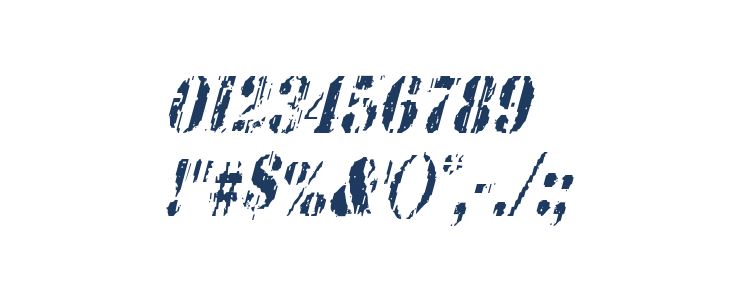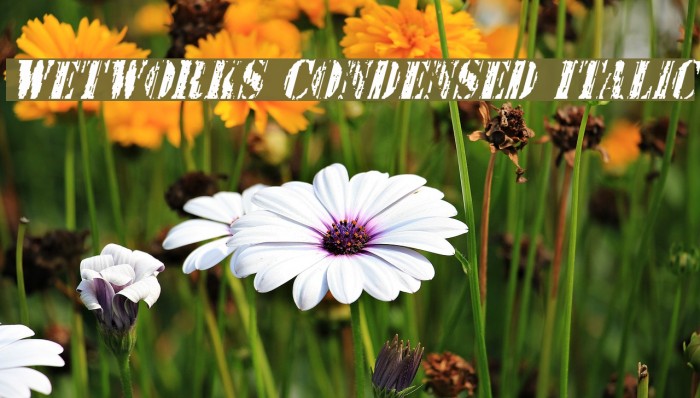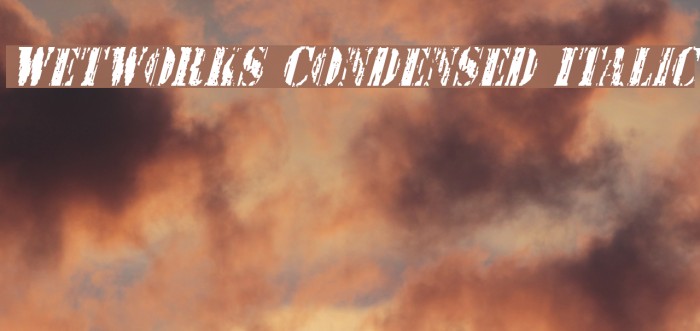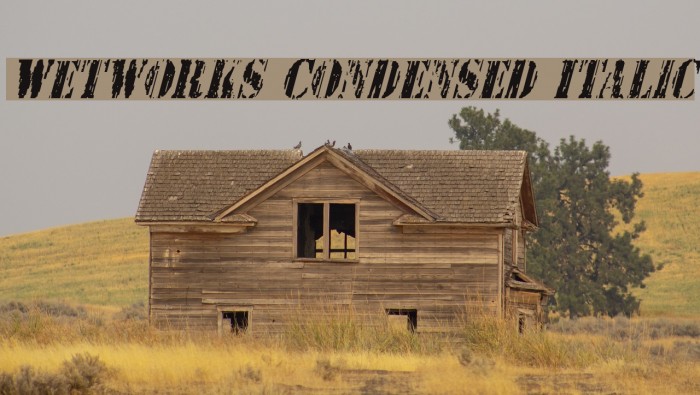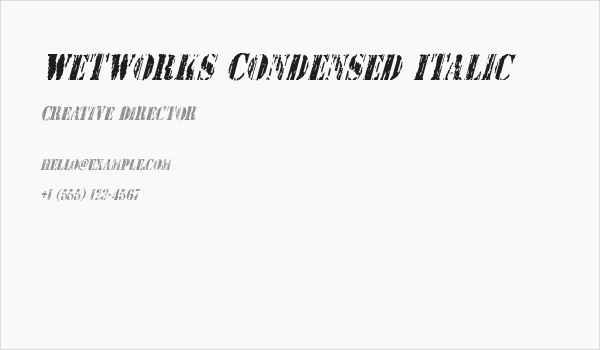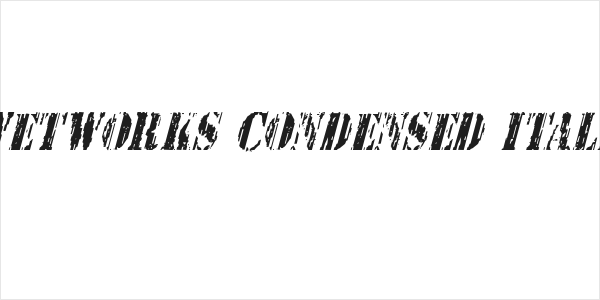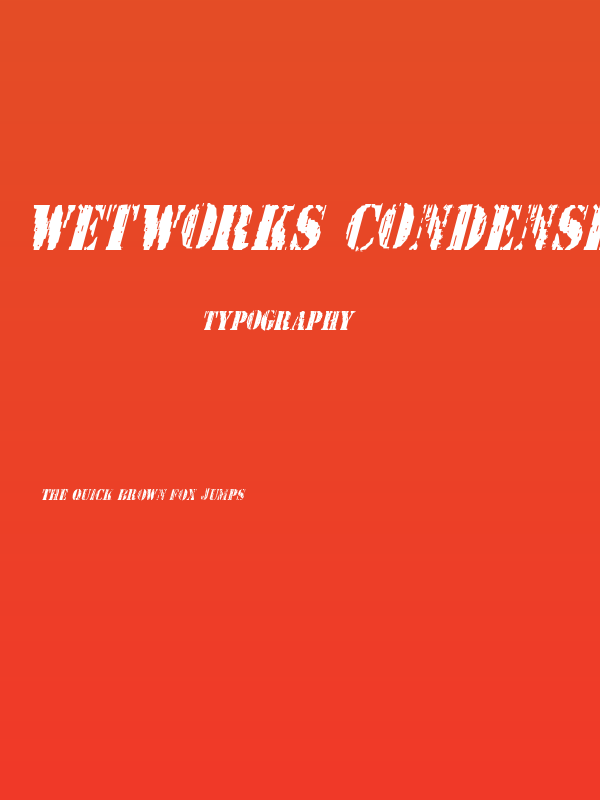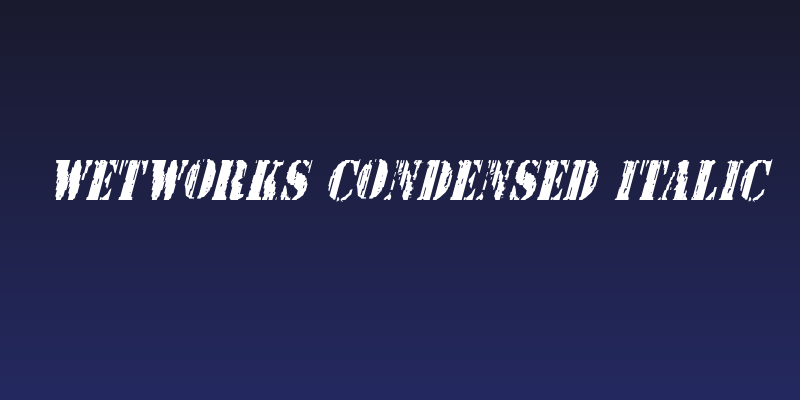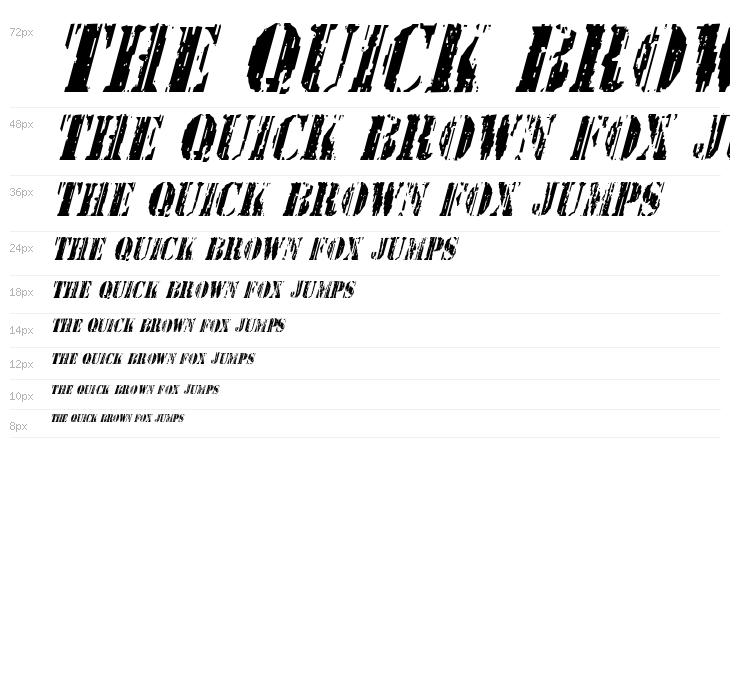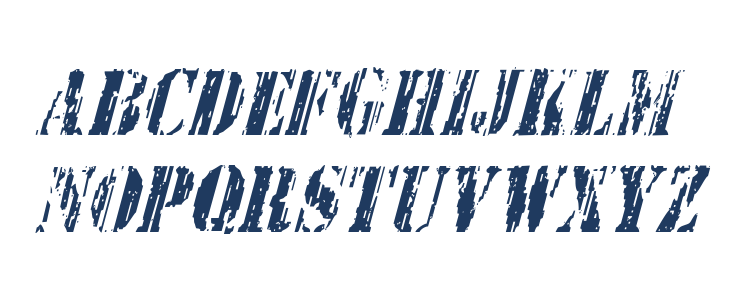
Wetworks Condensed Italic Font
Wetworks Condensed Italic Description
This font features a distressed, grunge style with a condensed and italicized form. The characters are bold and heavily textured, giving a worn and rugged appearance. The uppercase and lowercase letters maintain a consistent style, with jagged edges and irregular patterns that suggest a weathered look. The numbers and special characters follow the same aesthetic, making the font suitable for projects that require a gritty, urban feel. Its unique design makes it stand out, perfect for creating impactful headlines or artistic designs.
Overall StyleGrunge, Urban, Distressed
Use CaseHeadlines, Artistic designs, Branding
Proposed ProjectsIdeal for album covers, posters, street art designs, and edgy branding projects.